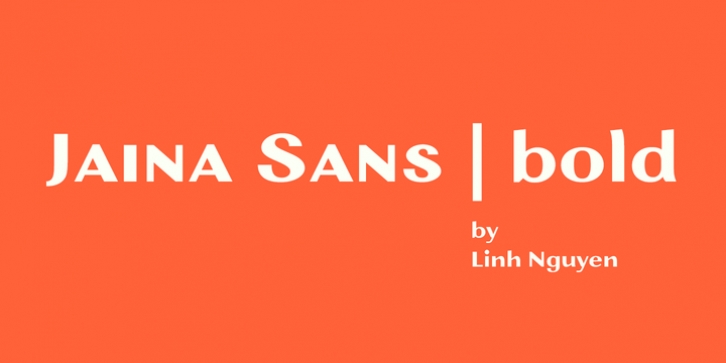
A display font with expanded width, bold weight is cultivated with high contrast in strokes, suitable for ephemeral design applications. It simulates the impact of cut tools with paper, cloth, and comes along with a feeling of geometric suggestions. Jaina Sans also supports over 200 latin based languages with 235 accented characters along with basic OpenType features.